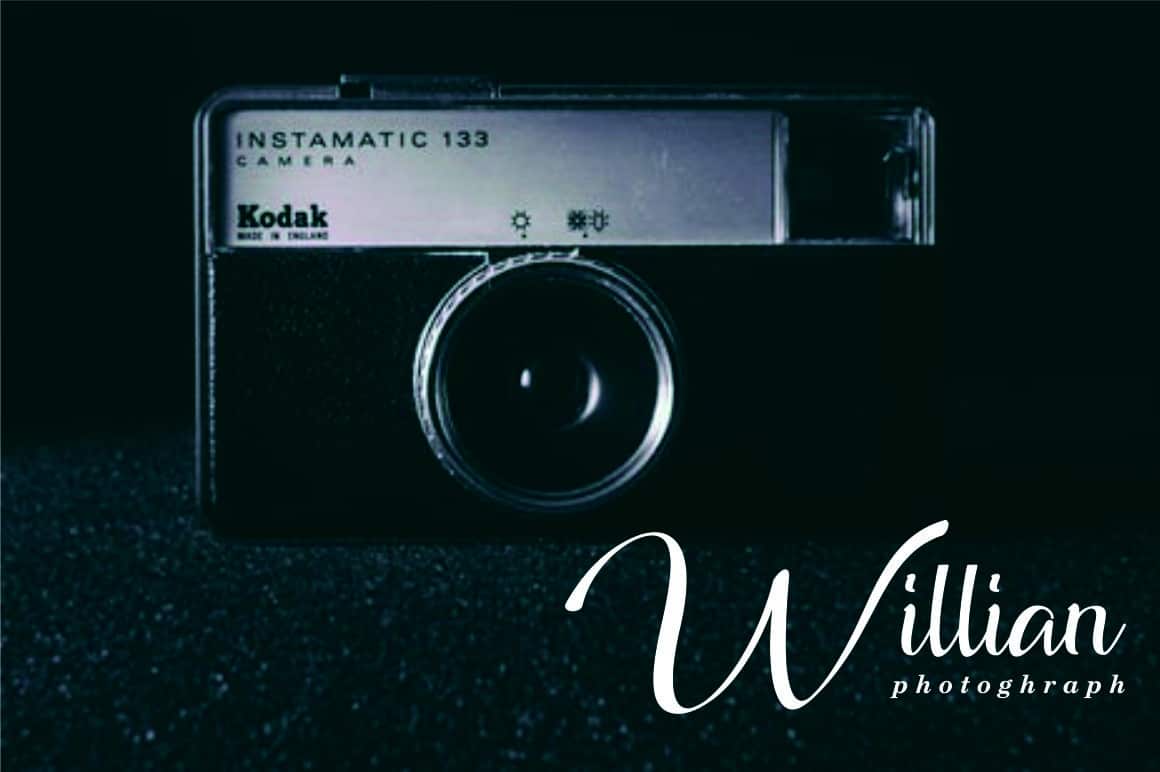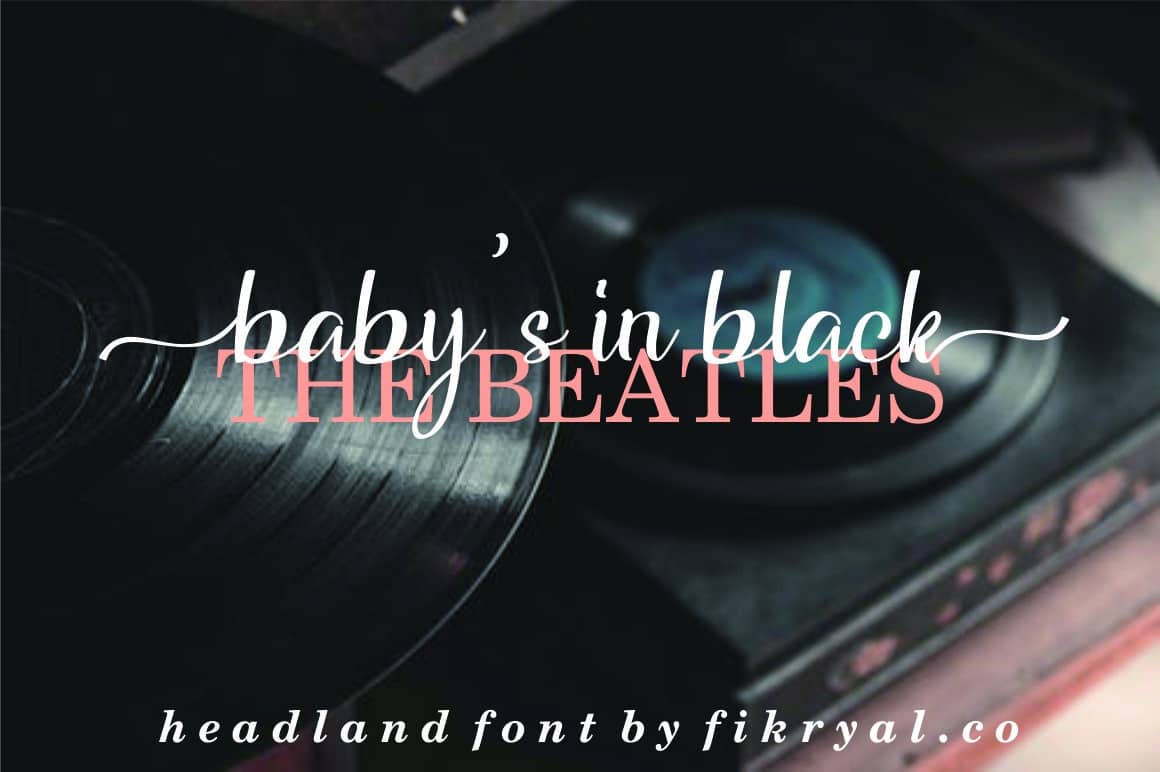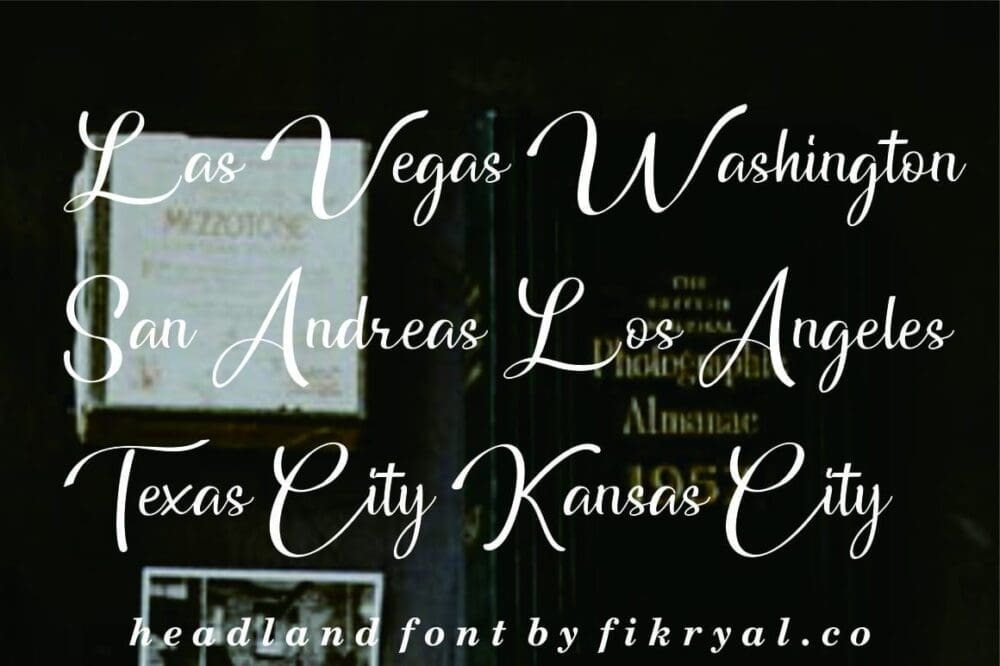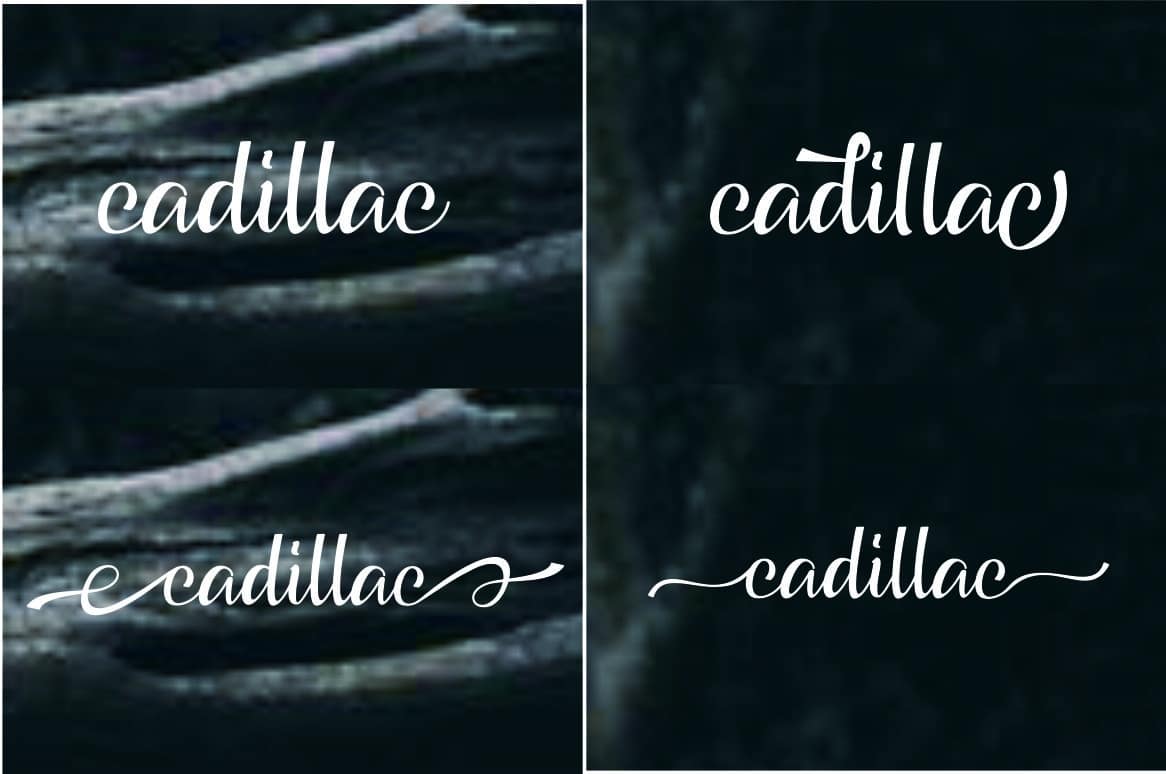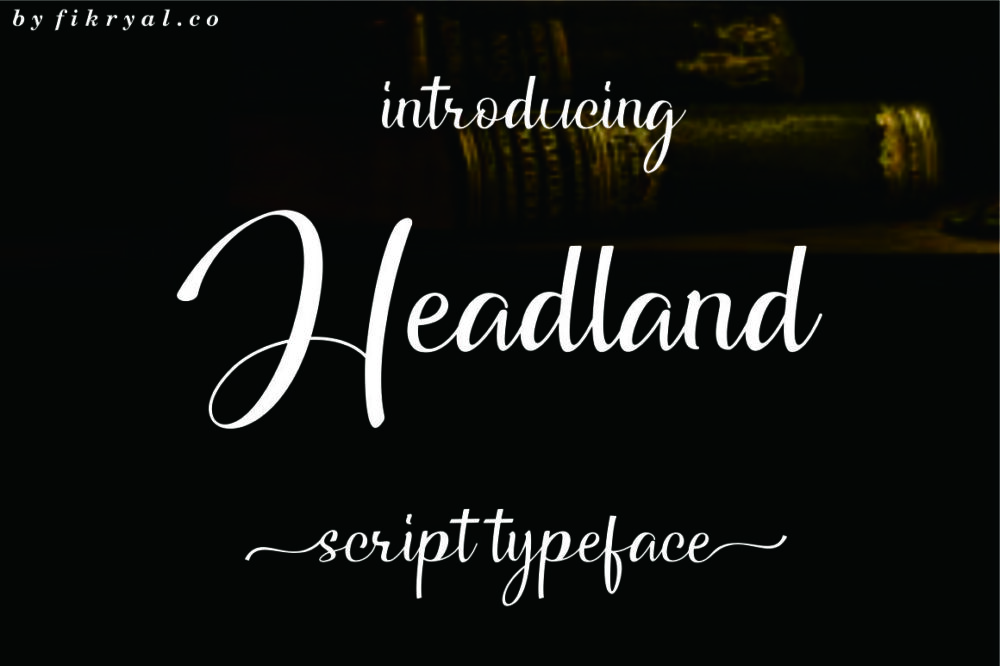
Headland Font
Headland – Font is a new stylish script font. Its Perfect for logo, branding, tittle, social media posts, advertisements, product packaging, product designs, label, photography, watermark, special event, magazine, web design, etc.